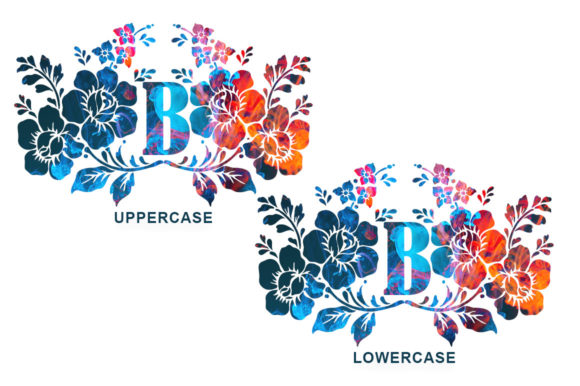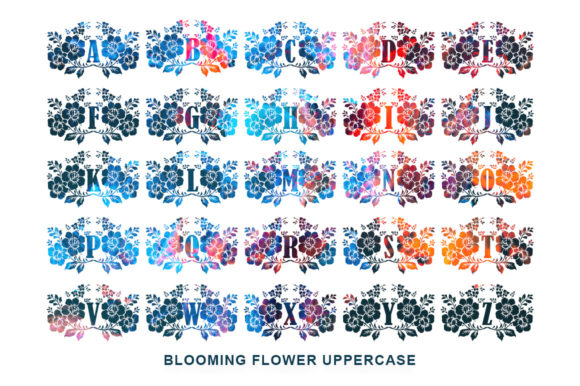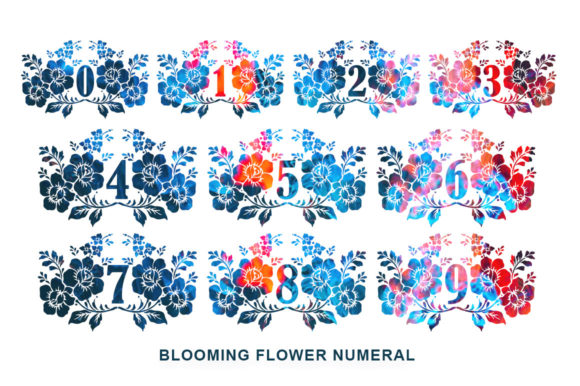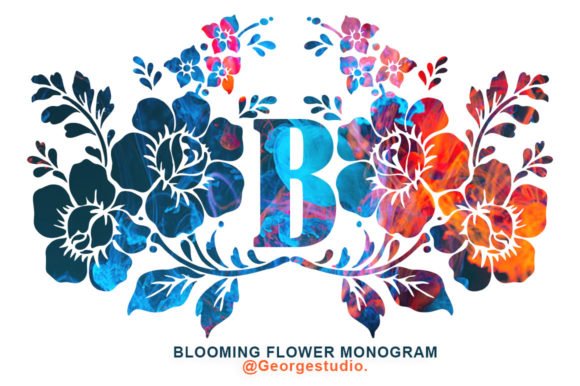
Blossoming Creativity: Unleashing the Beauty of Blooming Flower Monogram Font
There’s nothing quite like the thrill of discovering a new font that sparks your imagination. It’s that moment when the blank page transforms into a canvas of endless possibilities, and your creativity begins to flourish. For designers and artists, finding the perfect font can be the key to unlocking a project’s true potential. This is where the enchanting Blooming Flower Monogram Font comes into play.
This ravishing and highly detailed decorative font is more than just a visual element – it’s a statement piece that can elevate any design. Its natural and unique style makes it incredibly versatile, suitable for a wide range of applications, from wedding invitations to digital art. Whether you’re a seasoned designer or just starting out, the Blooming Flower Monogram Font is a valuable addition to your toolkit, waiting to be unleashed and bring your creative visions to life.
Blooming Flower Monogram Font Key Features
- Unique Floral Design: The font features intricate, hand-drawn floral designs that add a touch of elegance and whimsy to any text.
- Multiple Ligatures and Swashes: The font includes a range of ligatures and swashes to enhance the overall aesthetic and create visually appealing combinations.
Blooming Flower Monogram Font Review
Overall, I found the “Blooming Flower Monogram Font” to be a lovely addition to any design project. Here are some things that caught my eye:
- ✨ Beautiful, intricate design that’s perfect for spring or summer-themed projects
- ✨ Highly customizable, with various options for color and size
- ✨ Works well for monogramming, with a clear and easy-to-read format
However, I did encounter a few limitations:
- ⚠️ Some letters may be difficult to read if the font size is too small
- ⚠️ Limited support for non-English languages, which may be a concern for projects that require multilingual text
- ⚠️ Not ideal for projects that require a clean, minimalist look
Overall, I’d give the “Blooming Flower Monogram Font” 4 out of 5 stars. While it’s not perfect, it’s a great choice for projects that require a touch of whimsy and elegance. With some careful planning and customization, it can be a real showstopper.
The Blooming Flower Monogram Font is ideal for:
- Baby shower invitations and decorations.
- Wedding stationery and decor.
- Special occasion cards and gifts.
For the best results, use the font in conjunction with floral or vintage-inspired designs.